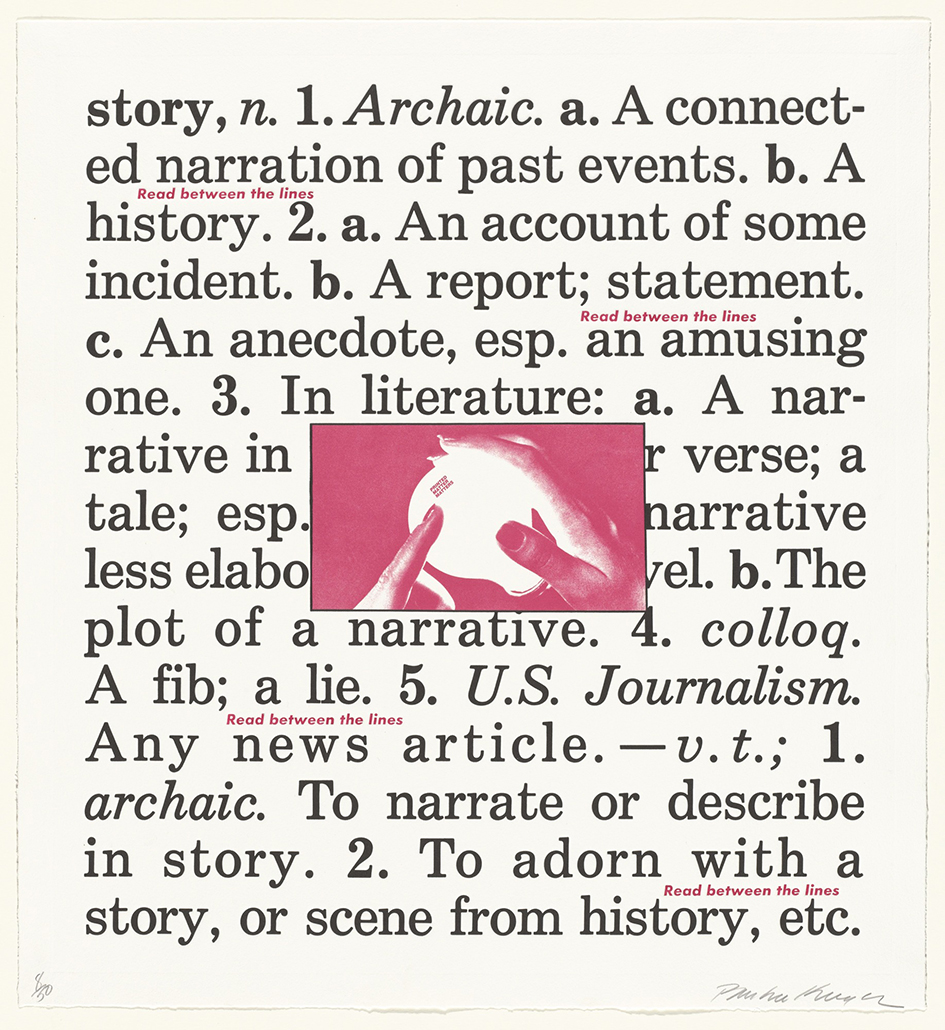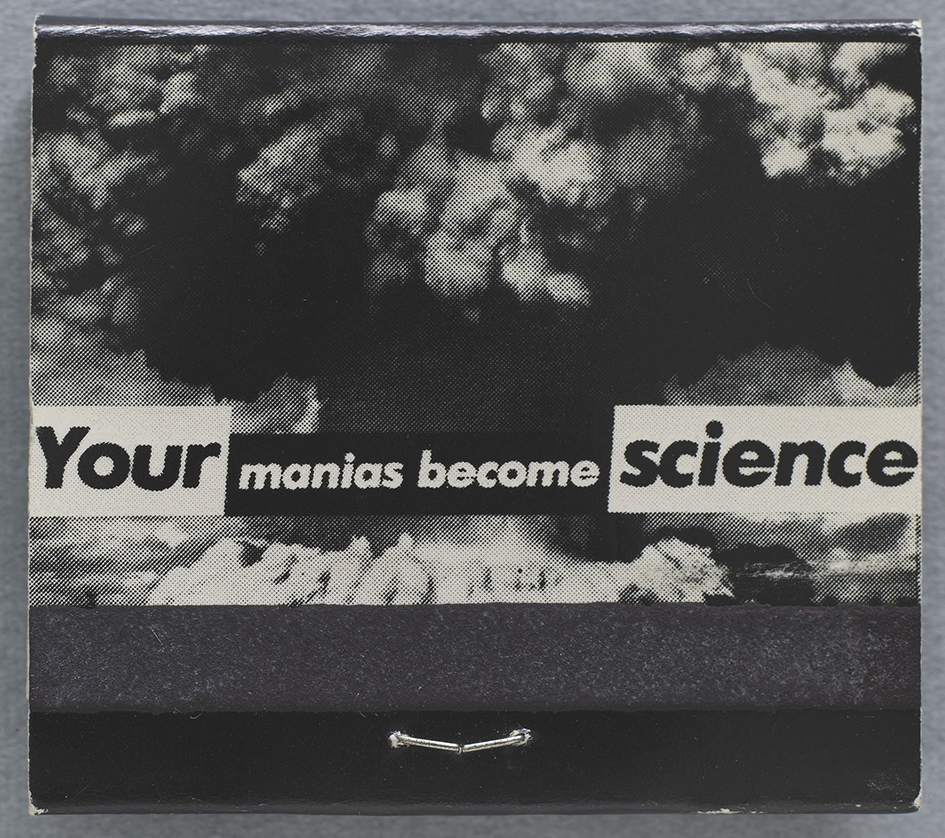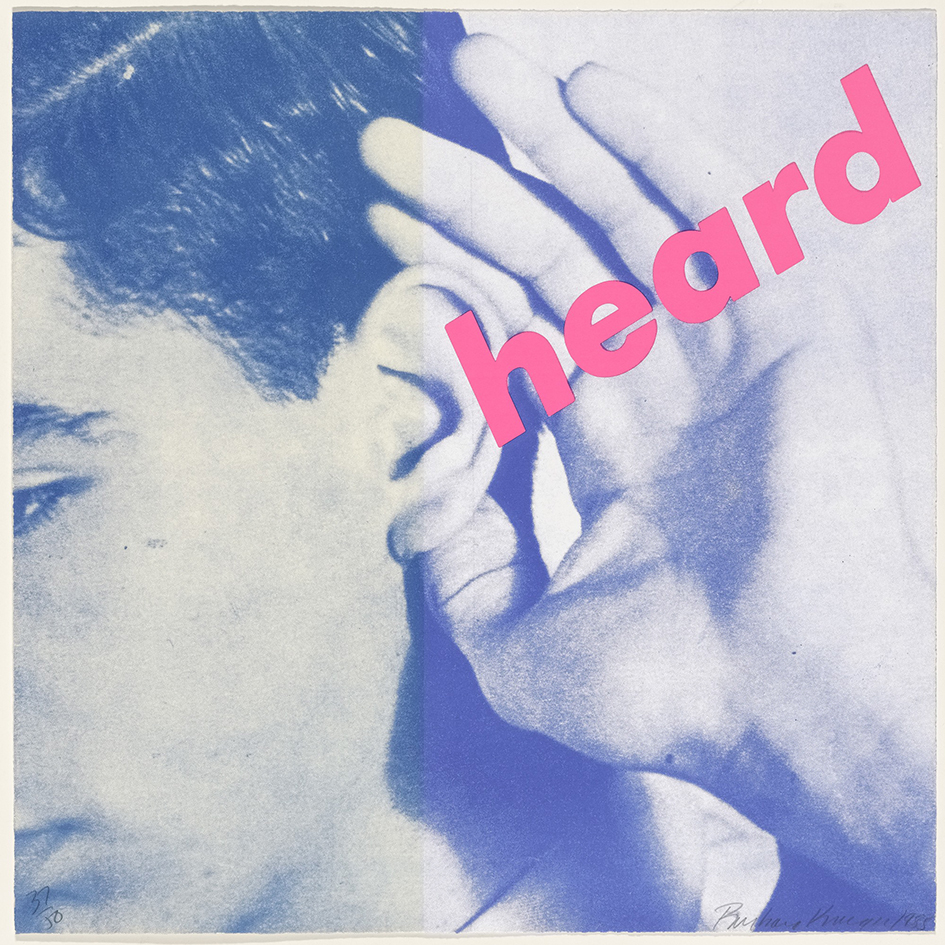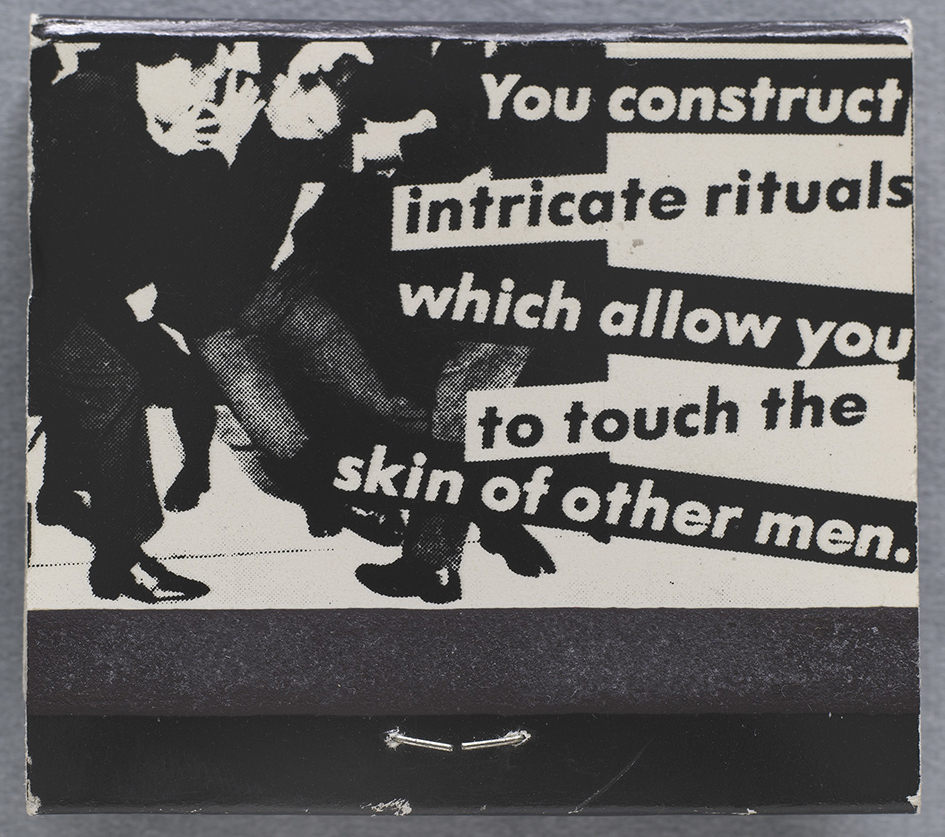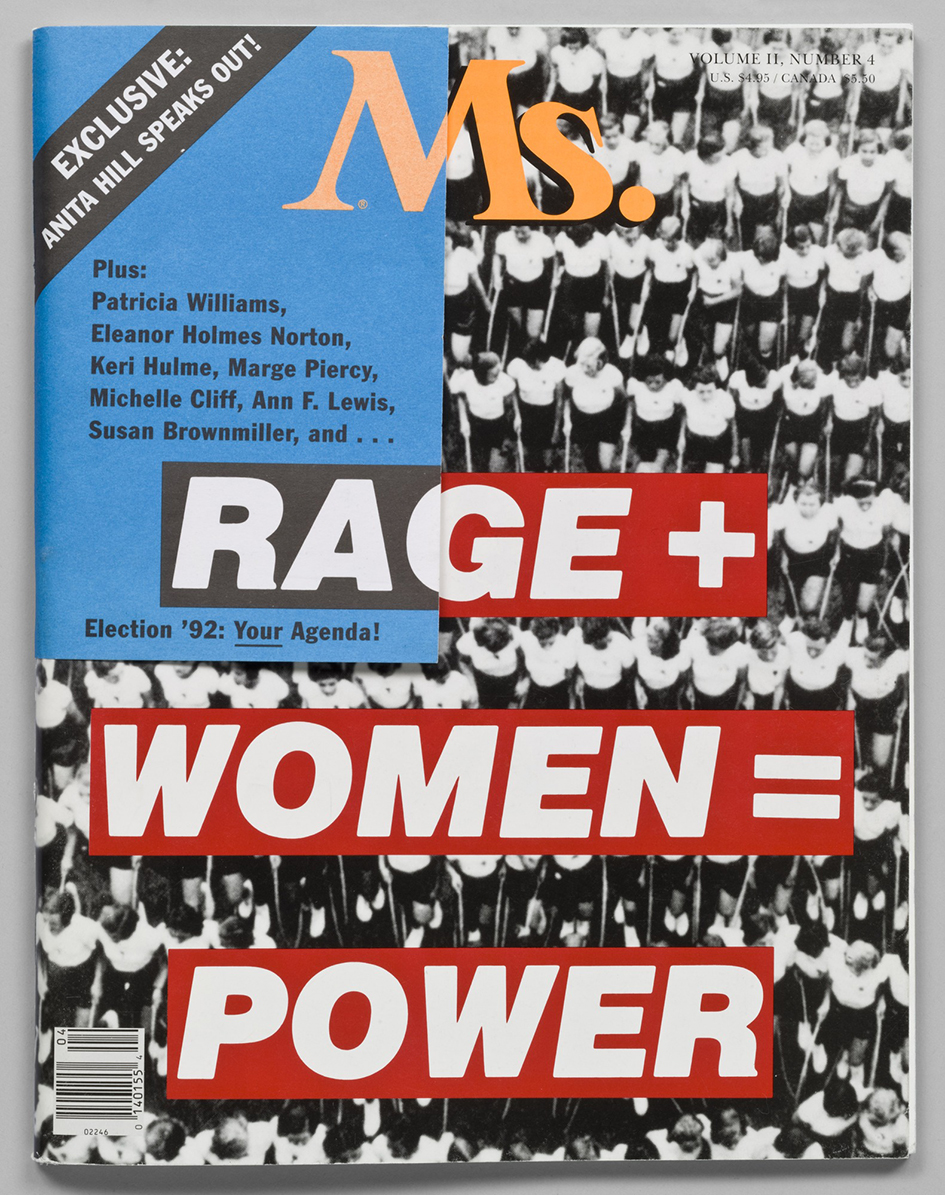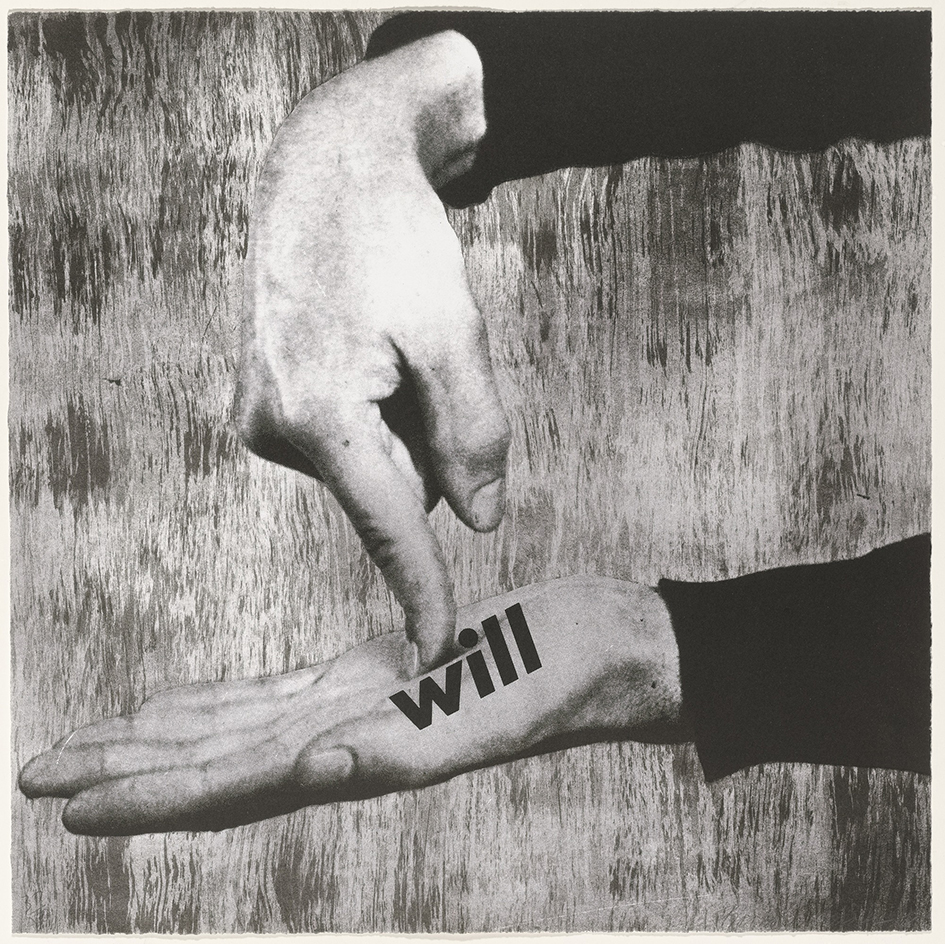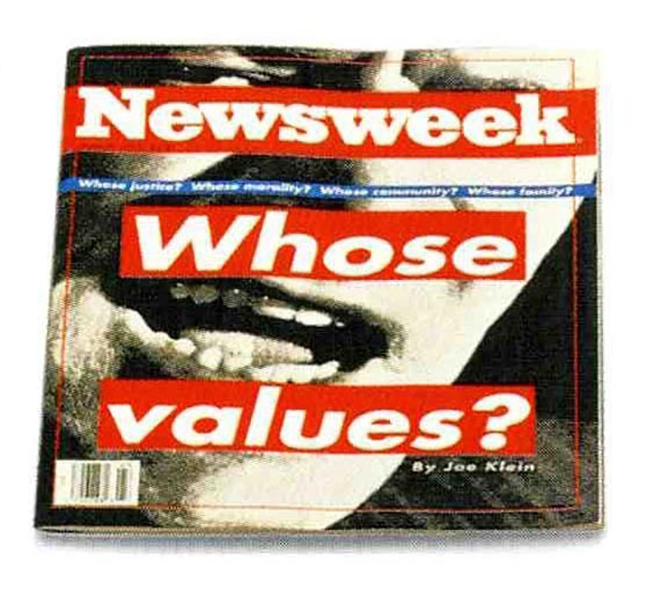
Barbara Kruger’s new installation FOREVER delights Berlin
Celebrating an icon in Berlin, Sprüth Magers presents FOREVER, a new site-specific work by Barbara Kruger.
Since the late 1970s Barbara Kruger has established herself as one of the most influential figures in contemporary art. Beginning with her earliest works, for which she combined language with mass media imagery culled from books and magazines, she has turned a critical eye toward consumerism, desire, political will, and the often-hidden mechanisms of power operating within contemporary society.
In the mid-1990s, Kruger produced her first multichannel video works and room-wrappings, tapping into a long-standing interest in architecture and expanding the scale of her installations to envelop viewers in disorienting, but thought-provoking, environments. Her exhibition in Berlin extends these investigations, which are as timely as ever in a moment pervaded by pseudo-facts and alternative realities.
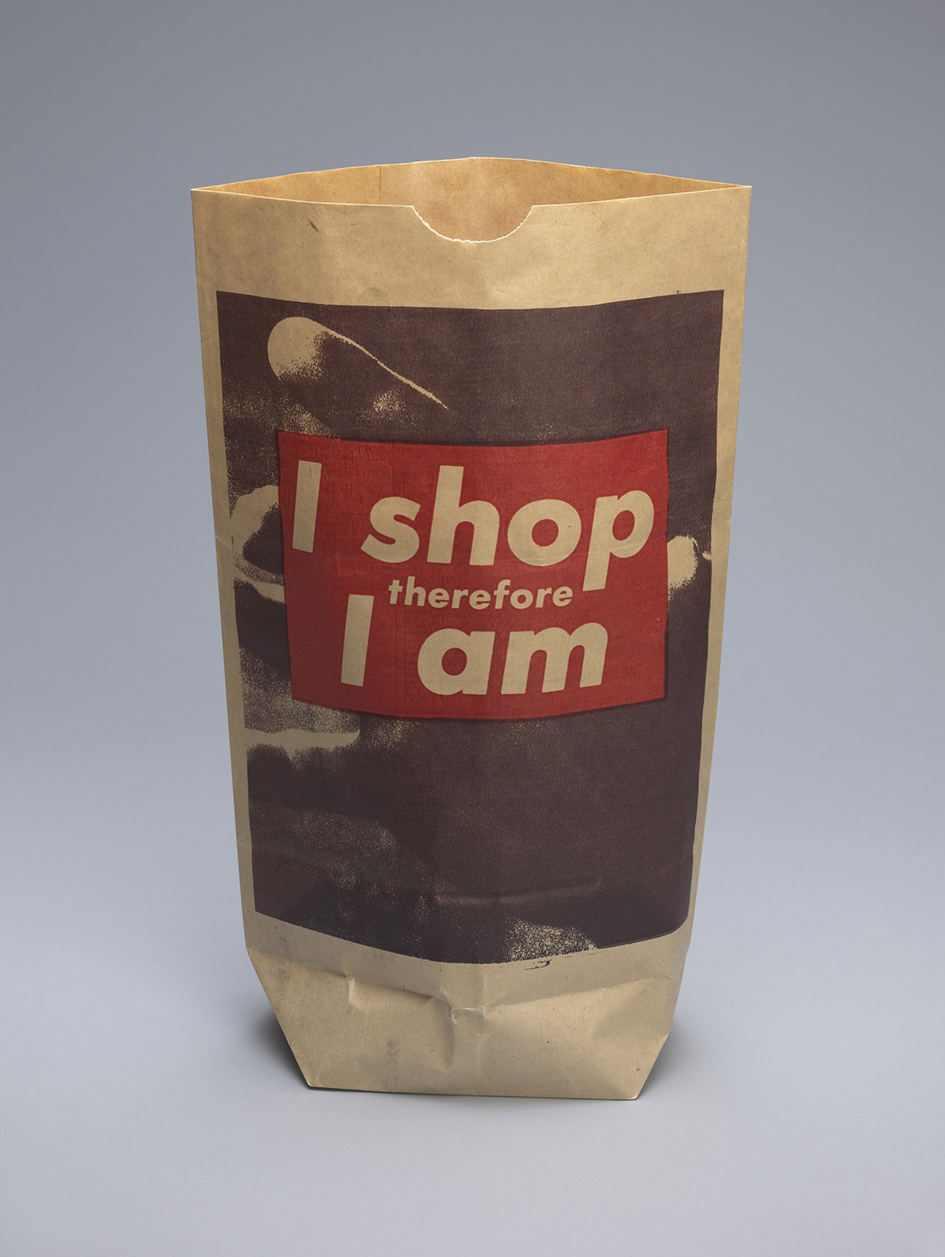
For her new installation FOREVER which occupies all four walls and the floor of the Berlin gallery’s main exhibition space, the artist has created one of her immersive room-wraps and several new vinyl works.
Their boldly designed textual statements on the nature of truth, power, belief and doubt embody the distinctive visual language that Kruger has developed over the course of her forty-year career.
This exhibition at Sprüth Magers, Berlin, marks exactly three decades since her first solo show at Monika Sprüth Gallery in Cologne.
Always working with her signature Futura Bold typeface Kruger’s text on a red box will relay declarative statements on “on the nature of truth, power, belief, and doubt,” said the gallery in a statement.
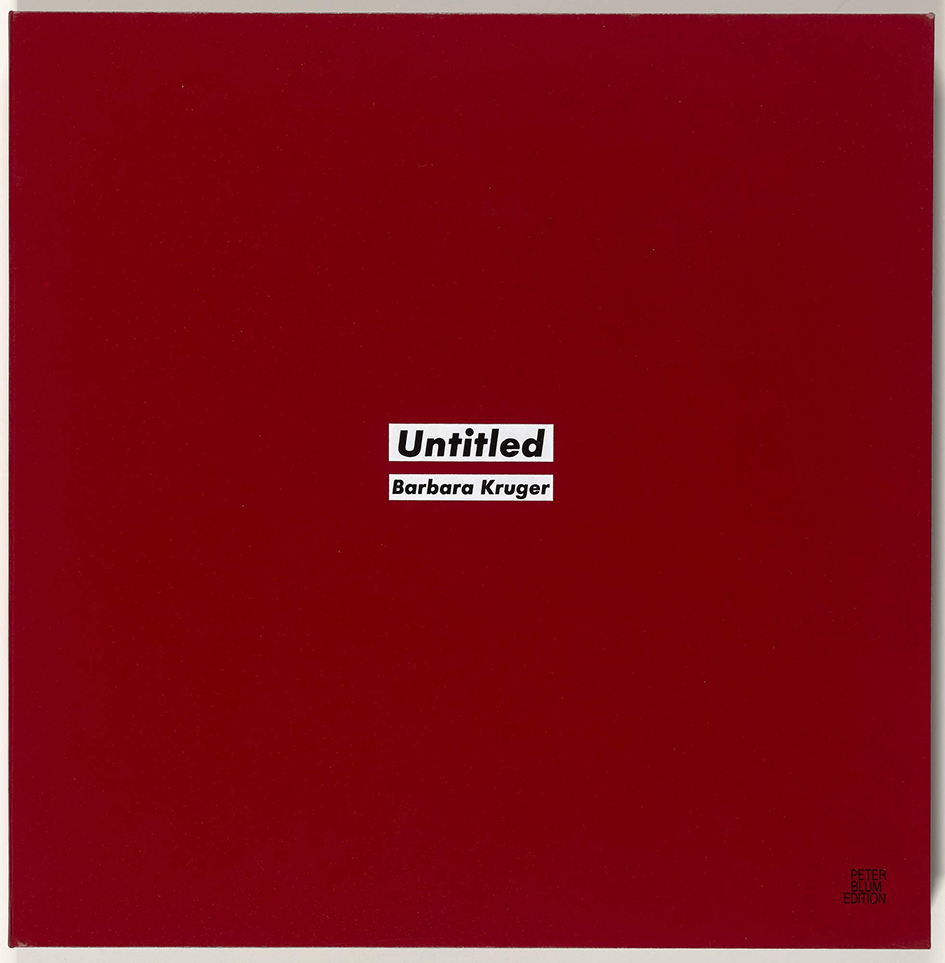
Barbara Kruger (*1945, Newark) lives and works in Los Angeles and New York. She was awarded the Golden Lion for Lifetime Achievement at the 51st Venice Biennale in 2005. Solo shows include National Gallery of Art, Washington (2016), High Line Art, New York (2016), Modern Art Oxford (2014), Kunsthaus Bregenz (2013), Pinakothek der Moderne, Munich (2011), Schirn Kunsthalle, Frankfurt (2010), Gallery of Modern Art, Glasgow (2005), Whitney Museum of American Art, New York (2000), Museum of Contemporary Art, Los Angeles (1999), Serpentine Gallery, London (1994), Musée d'art contemporain, Montreal (1985) and Kunsthalle Basel (1984).
Group shows include those at V-A-C Foundation, Palazzo delle Zattere, Venice (2017), Hammer Museum, Los Angeles (2014), Biennale of Sydney (2014), Museum Ludwig, Cologne (2013), Stedelijk Museum, Amsterdam (2010), Museum of Modern Art, New York (2007, 2009, 2010), Palazzo Grassi, Venice (2006), MCA Chicago (2004), Tate Liverpool (2002), Centre Pompidou, Paris (1988) and Solomon R. Guggenheim Museum, New York (1987).